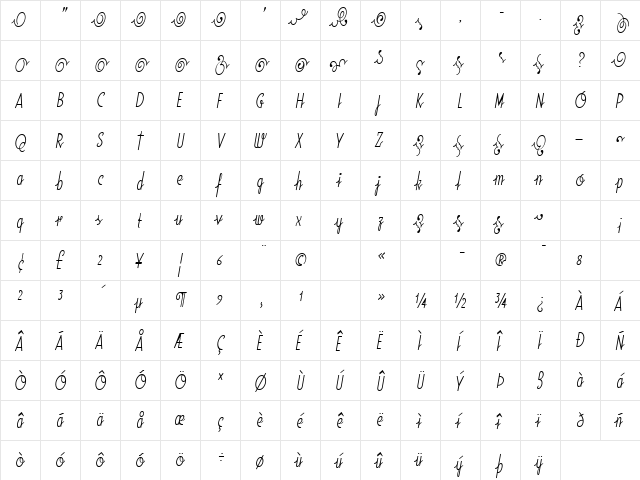
Soda Script Light Extras Regular Font Preview
Design Context for Soda Script Light Extras Typeface
Soda Script Light Extras flows with the natural rhythm of handwritten lettering, making it ideal for designs that call for warmth and personal expression. The delicate stroke weight brings airiness and refinement to layouts.
Font Pairing: Combine Soda Script Light Extras with a simple geometric sans for maximum contrast — the tension between flowing curves and clean structure is a classic typographic pairing.
Pro Tip: Pair Soda Script Light Extras with a clean sans-serif for supporting text. The contrast between fluid script and geometric structure creates an elegant typographic hierarchy.